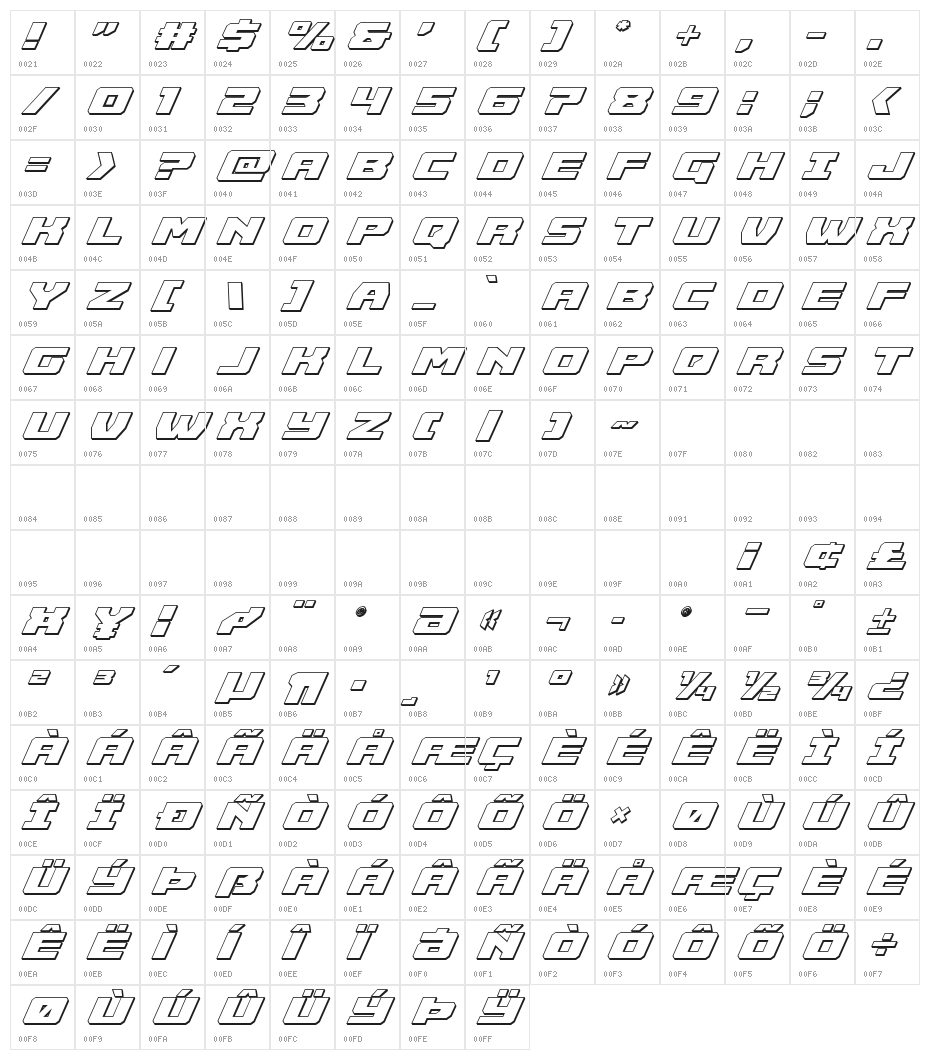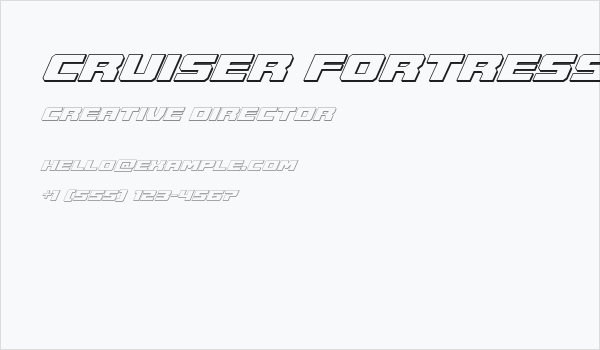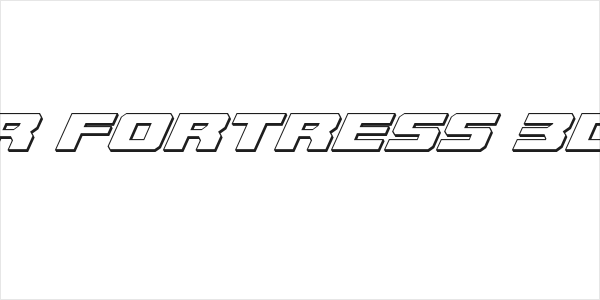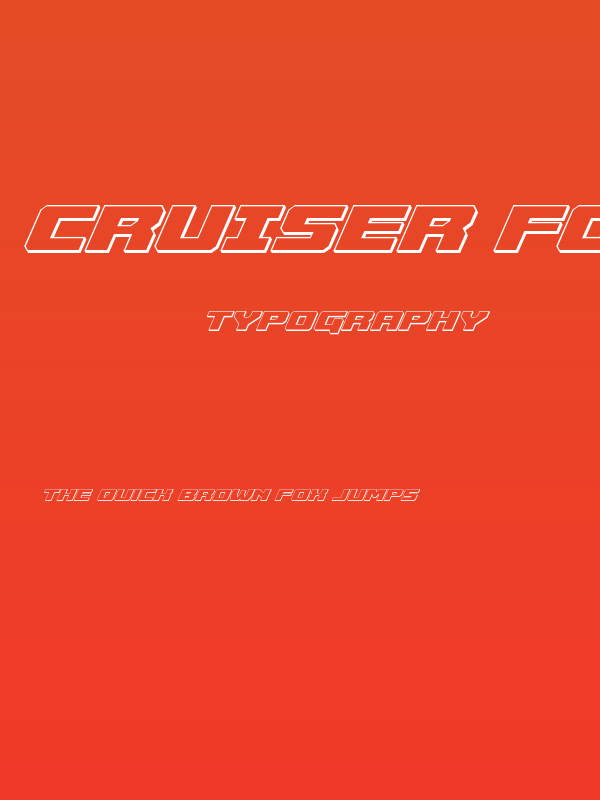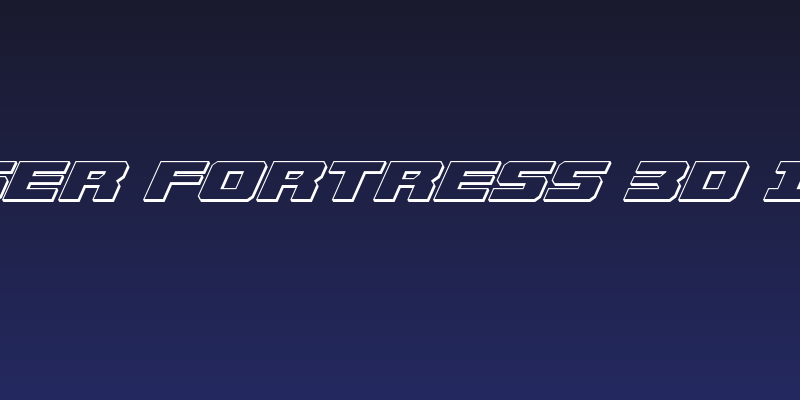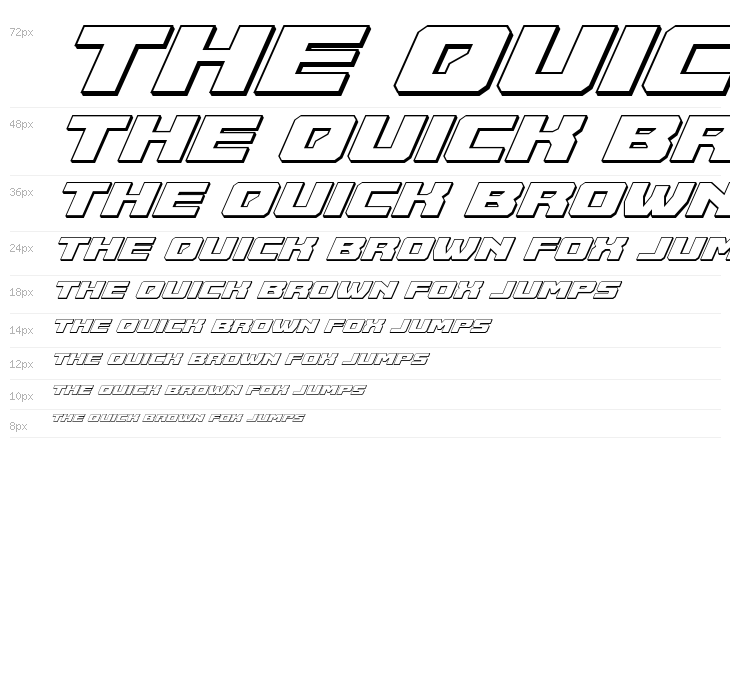
Cruiser Fortress 3D Italic Font
Cruiser Fortress 3D Italic Description
This font features a bold, three-dimensional design with an italic slant, giving it a dynamic and futuristic appearance. The characters are outlined, creating a sense of depth and movement. The uppercase letters are uniform in height, while the numbers and special characters maintain the same bold and structured style. The geometric shapes and sharp angles contribute to its modern and industrial feel, making it stand out in any design. The spacing between characters is consistent, allowing for clear readability despite the complex design. This font is ideal for projects that require a strong visual impact.
| Proposed Projects | Ideal for video game titles, sci-fi movie posters, tech branding, and sports team logos. |